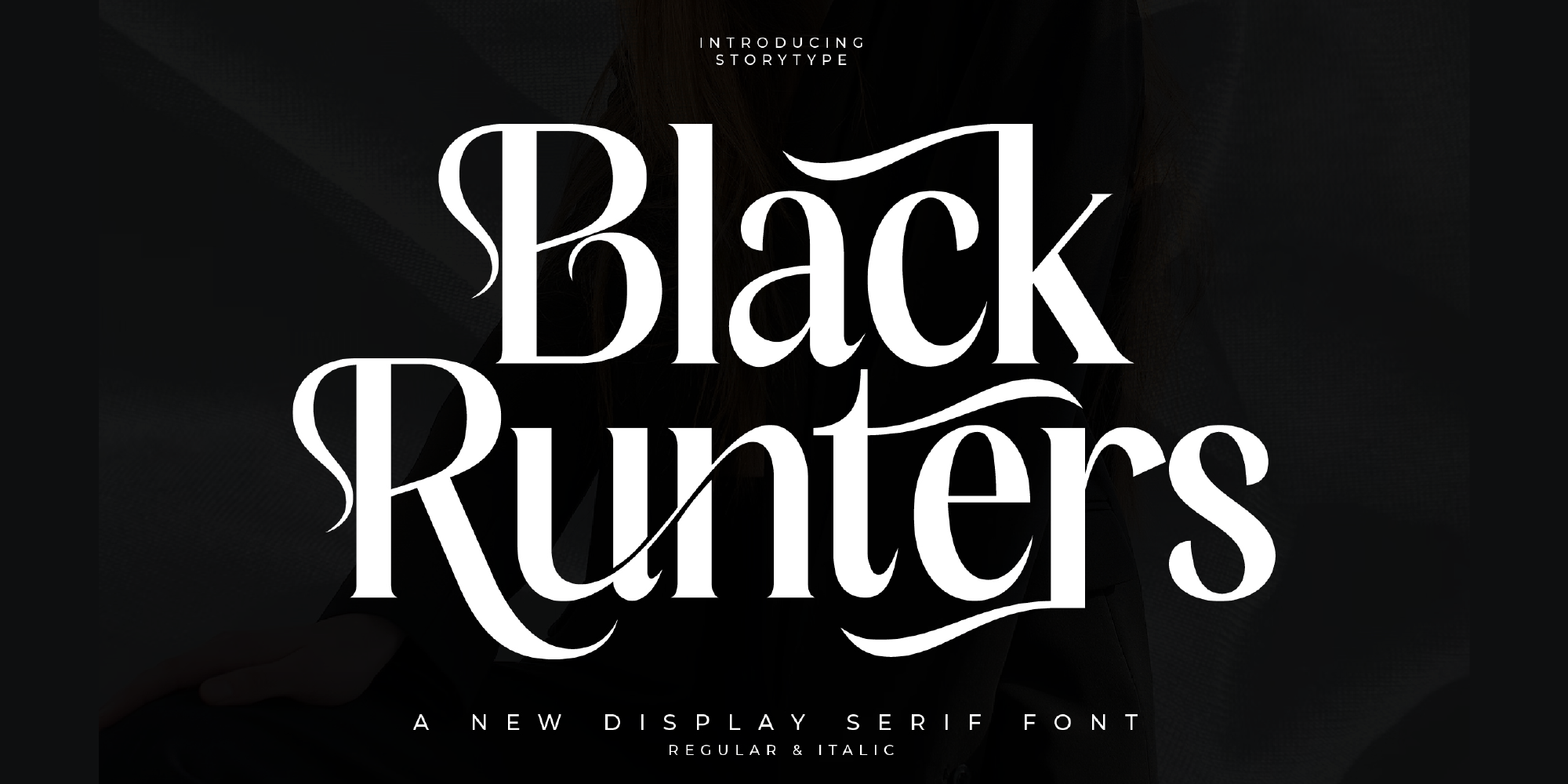
Ideal for posters, headlines, branding, merchandise design, music album covers, and social media graphics, Black Runters Font Free Download brings energy and personality to your creative projects.
What makes this font exciting is its aggressive strokes, sharp angles, and a raw, edgy vibe that commands attention. It’s perfect for designers who want their typography to stand out with confidence and attitude.
The Black Runters font family includes styles such as Regular and Bold, giving you the flexibility to create impactful and versatile typographic layouts.
If you’re ready to inject your designs with boldness and originality, Black Runters Font Free Download is the font to choose. Download it today, explore its vibrant character, and let your visuals roar with energy.